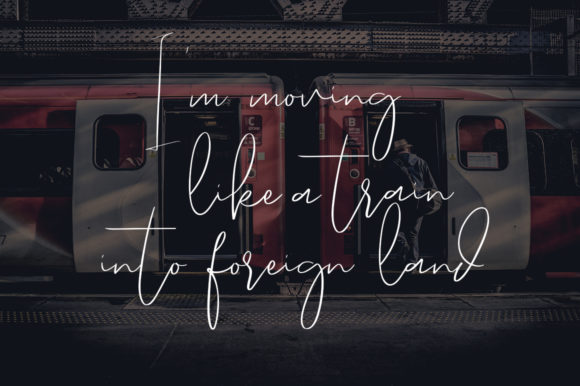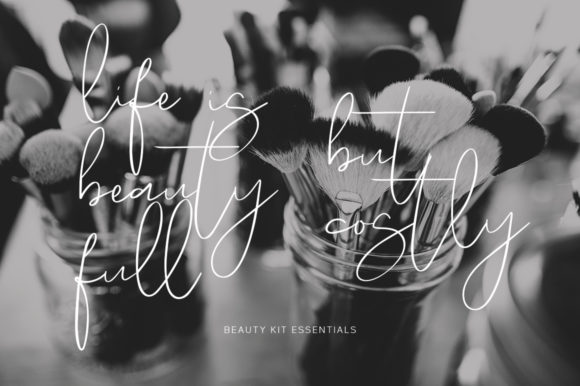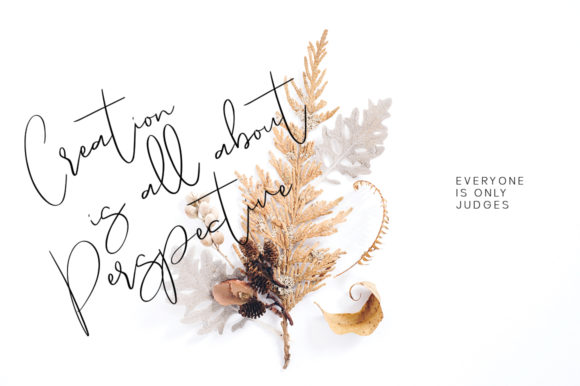
Introduction to Ladytron Font
Ladytron results out of a stunning pairing of a brush pen and pencil that makes it look incredibly endearing and authentic.
Use this gorgeous and unique script font to bring any DIY project to life .
Key Features of Ladytron Font